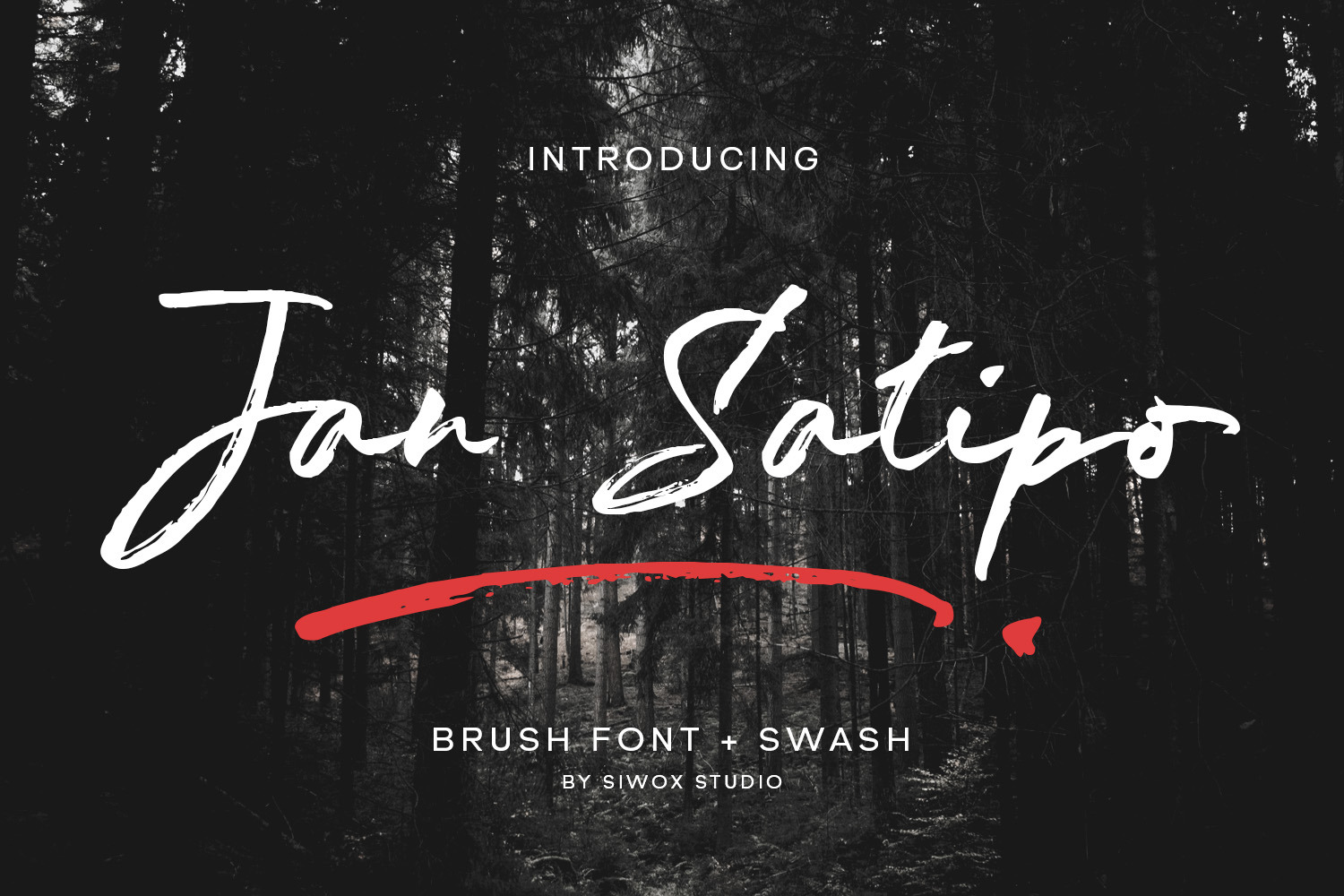
Jan Satipo Brush Font
Revitalize your next design project with the spectacular charm of the "Jan Satipo Brush Font". This organic and vivacious font is designed to breathe an element of nature's aesthetic into your creative pursuits. An ideal choice for embellishing taglines, titles, book covers, and logos, Jan Satipo Brush Font can also sprinkle its magic on your quotidian quotes, invitations, and posters.
Gifting your design with a verdant allure, this font additionally showcases distinctive alternative characters and an engaging swash stroke that's bound to command attention. Let your design speak the language of nature with the Jan Satipo Brush Font!